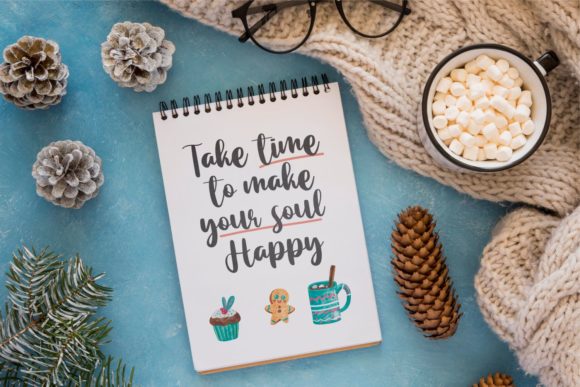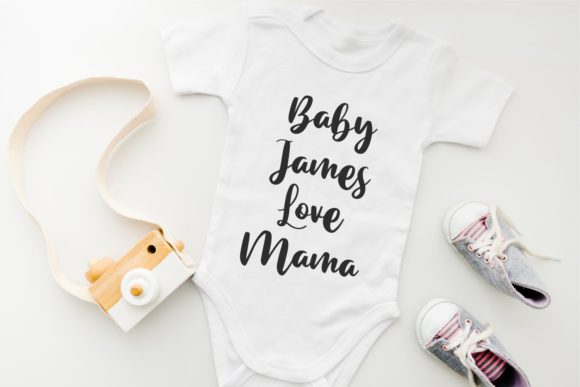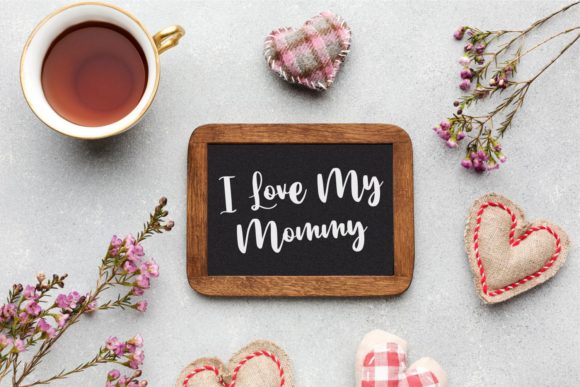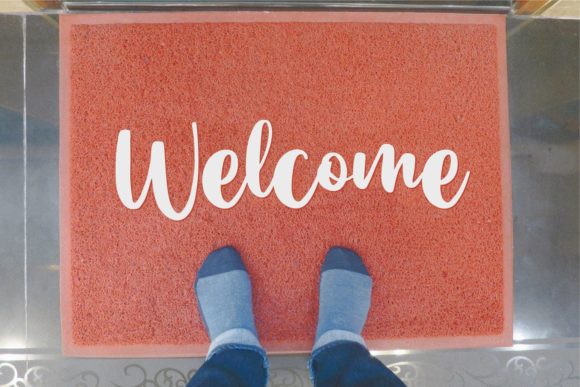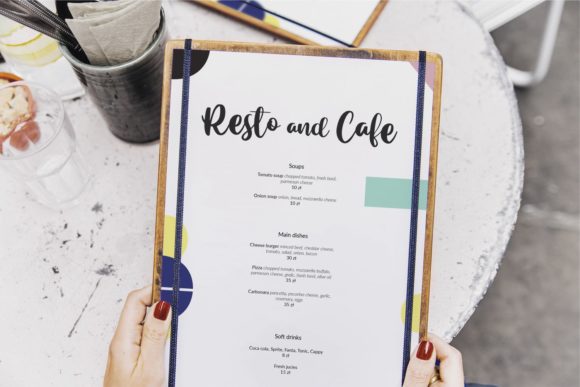
Ocean Sunshine Font
Ocean Sunshine is a romantic and round lettered script font. It has a sweet and gentle touch and it is the ideal choice for creating radiant designs.